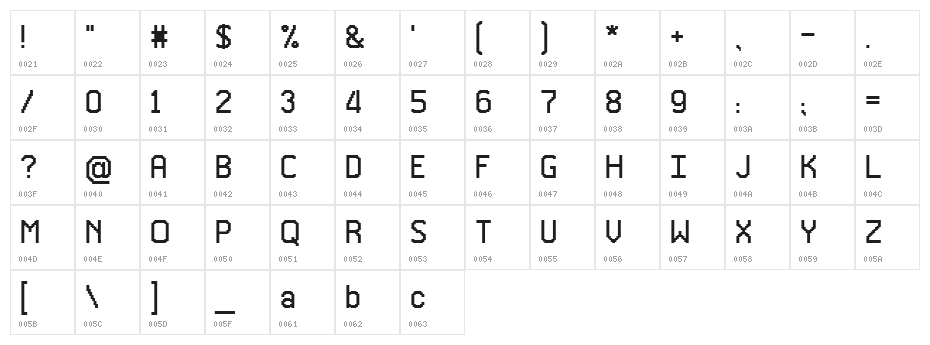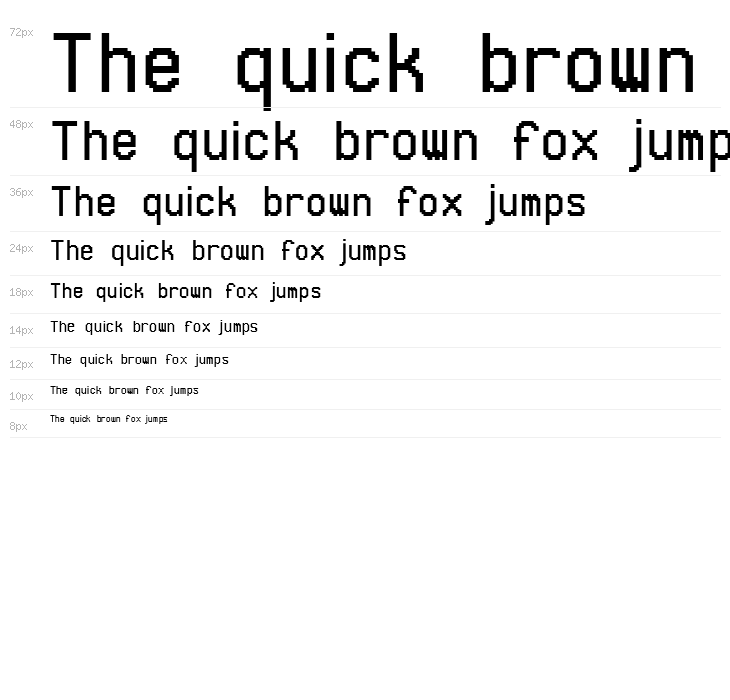
Glitch0 Font
Glitch0 Description
This font features a pixelated, blocky design reminiscent of early digital displays and retro video games. Each character is constructed with a grid-like precision, giving it a distinctly digital and geometric appearance. The uppercase and lowercase letters maintain a consistent height, contributing to a uniform and cohesive look. Numbers and special characters follow the same pixelated style, ensuring visual harmony across all elements. The font's simplicity and clarity make it highly legible, even at smaller sizes, while its unique style adds a nostalgic, tech-inspired flair to any project.
| Use Case | Headlines, Logos, Digital displays |
| Proposed Projects | Ideal for video game graphics, tech-themed posters, digital art projects, and retro-inspired branding. |